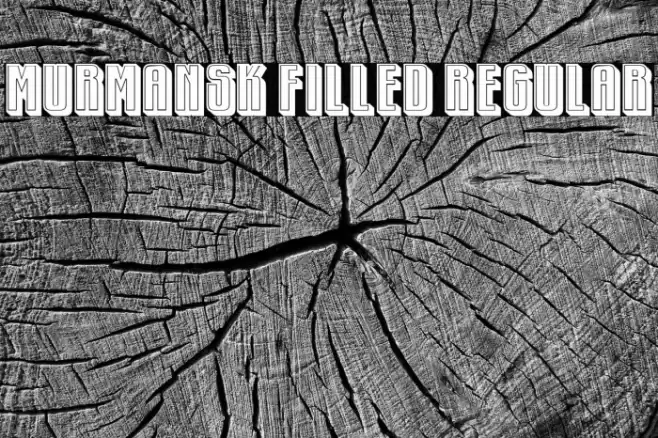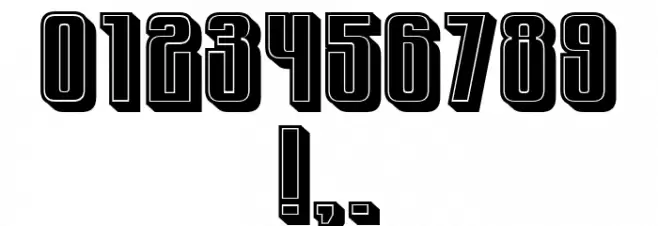
Murmansk Filled Regular Font
Murmansk Filled Regular Description
This font features a bold, geometric design with a strong presence. Each character is outlined with a thick border, creating a striking contrast between the filled interior and the outer edges. The uppercase and lowercase letters maintain a consistent style, emphasizing vertical and horizontal lines with sharp angles. The numbers and special characters follow the same design principles, ensuring uniformity across all glyphs. The font's boldness and distinct outline make it ideal for attention-grabbing designs.
A bold, geometric font with thick outlines and strong contrast from Uncategorized fonts.
- Proposed Projects: Ideal for posters, headlines, logos, and branding materials that require a bold and impactful look.